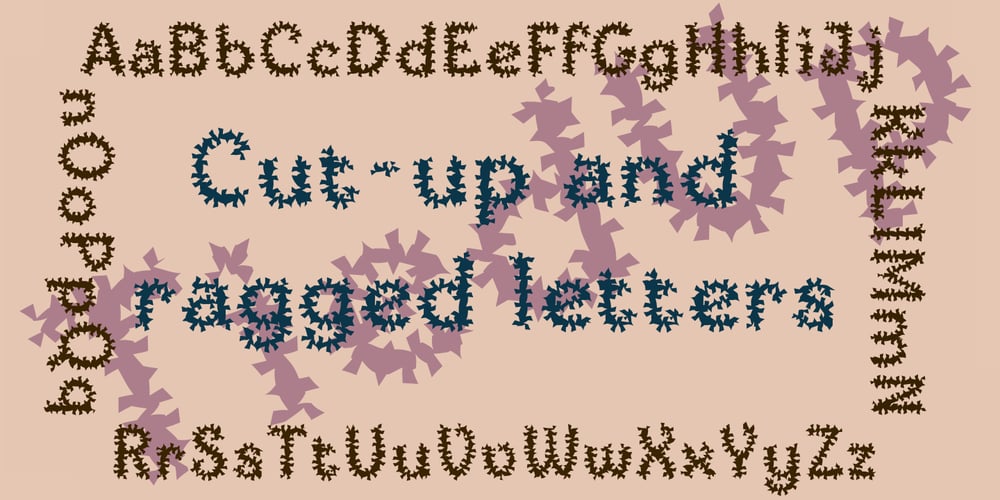
TiedUp Font Family was designed by Robert Schenk and published by Ingrimayne Type. TiedUp contains 1 styles and family package options. TiedUp is a distortion of the font Ingone. I no longer remember which font distortion program or procedure I used to get this cut-up or ragged effect.